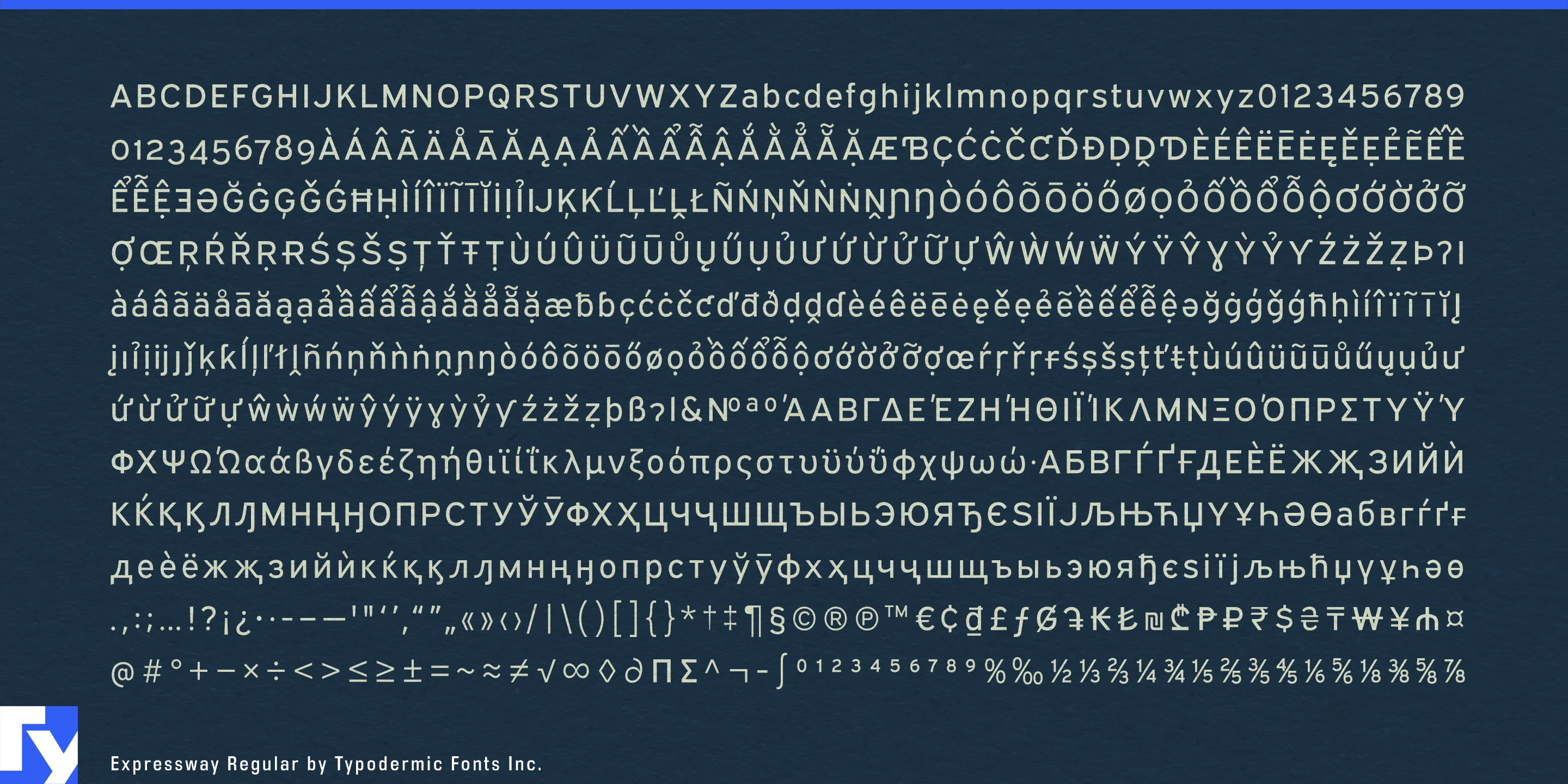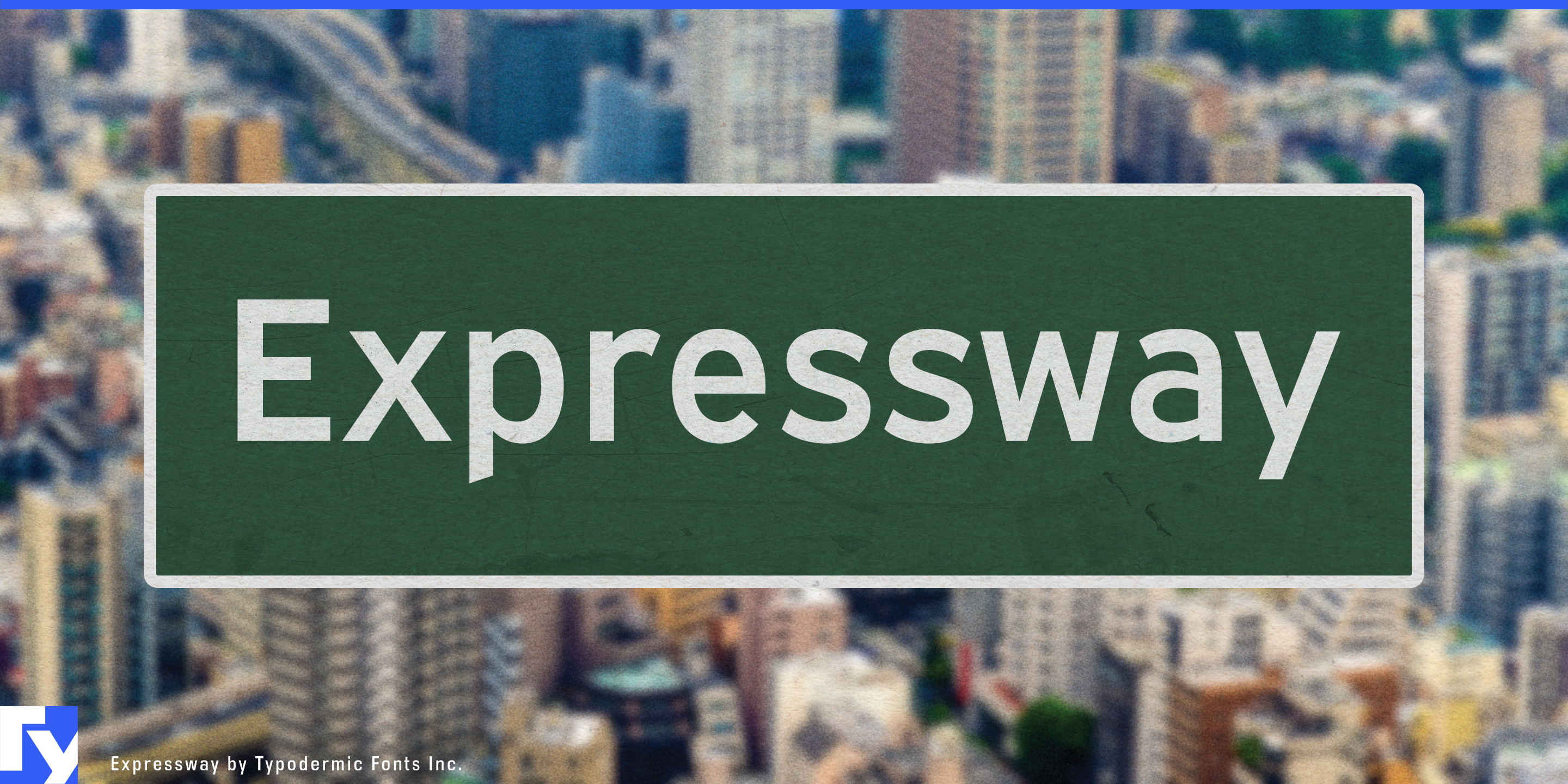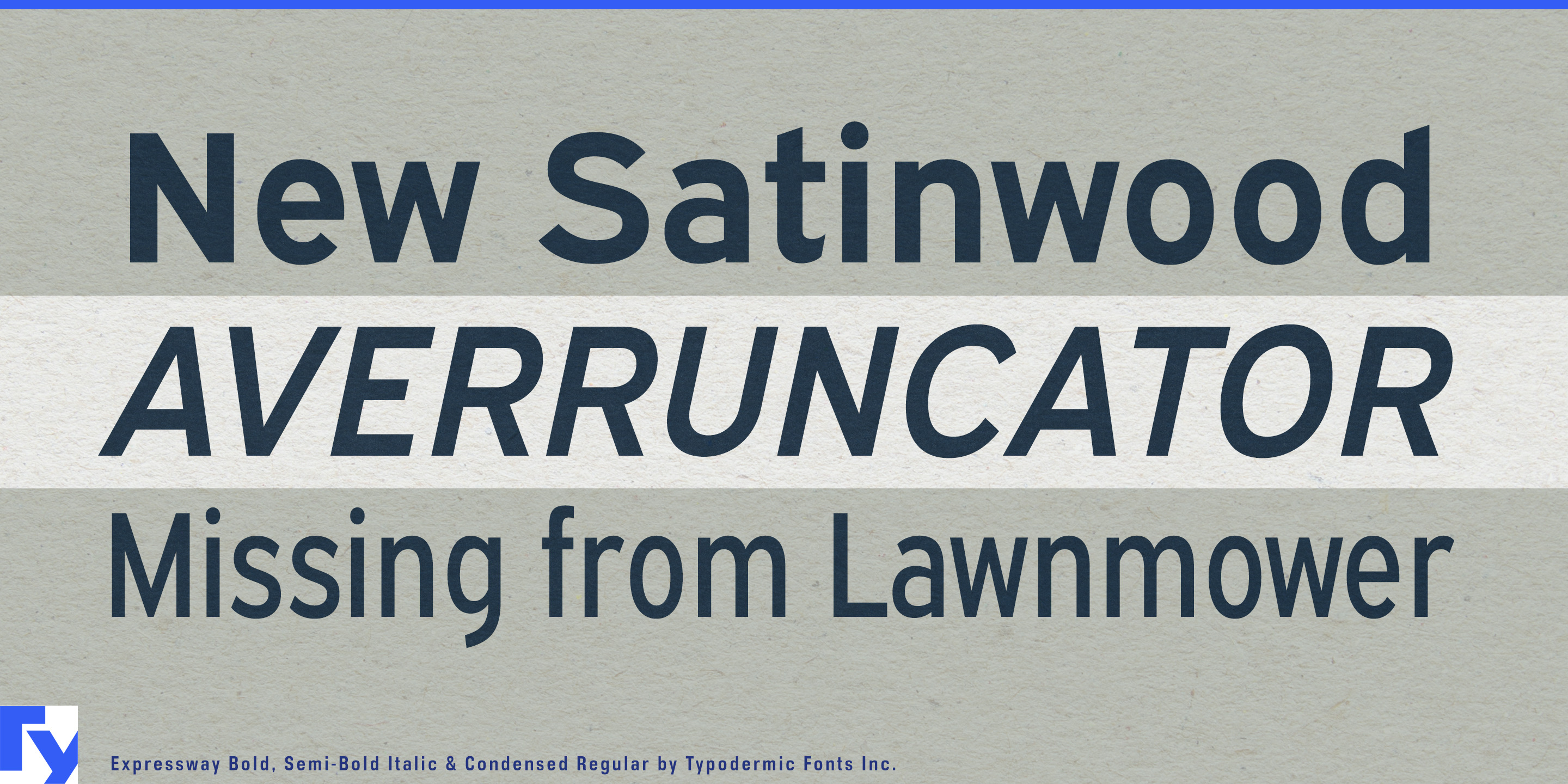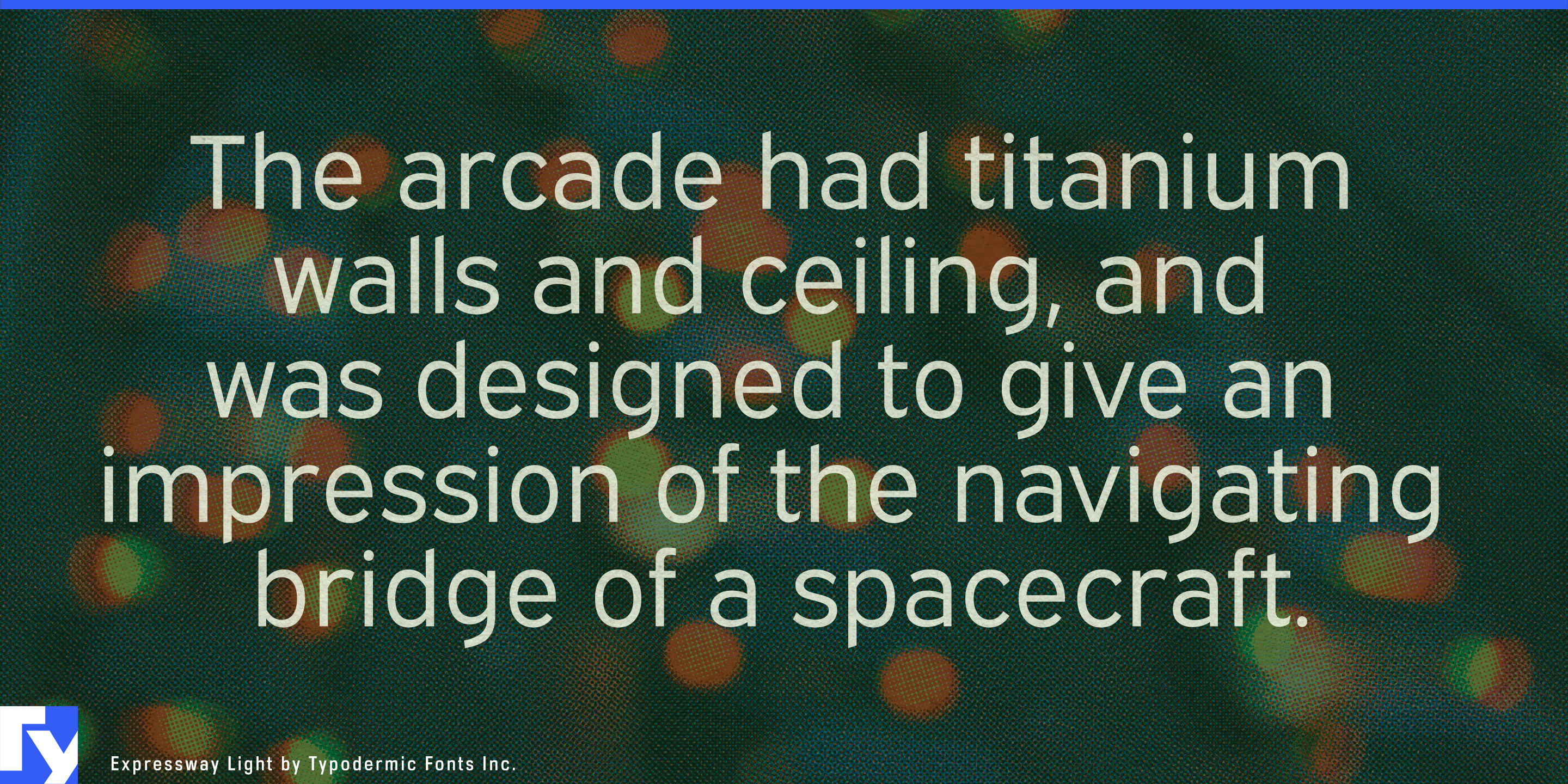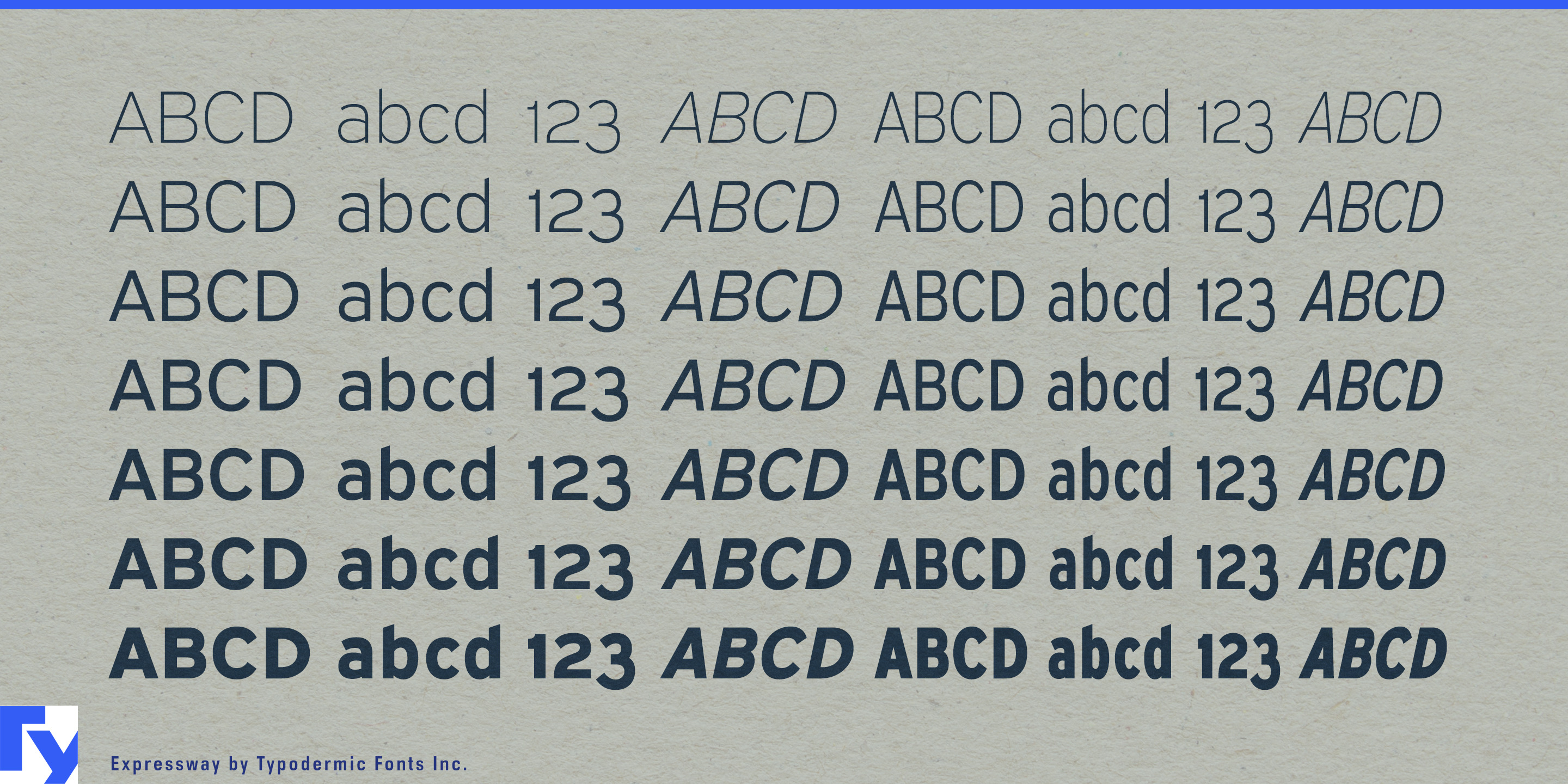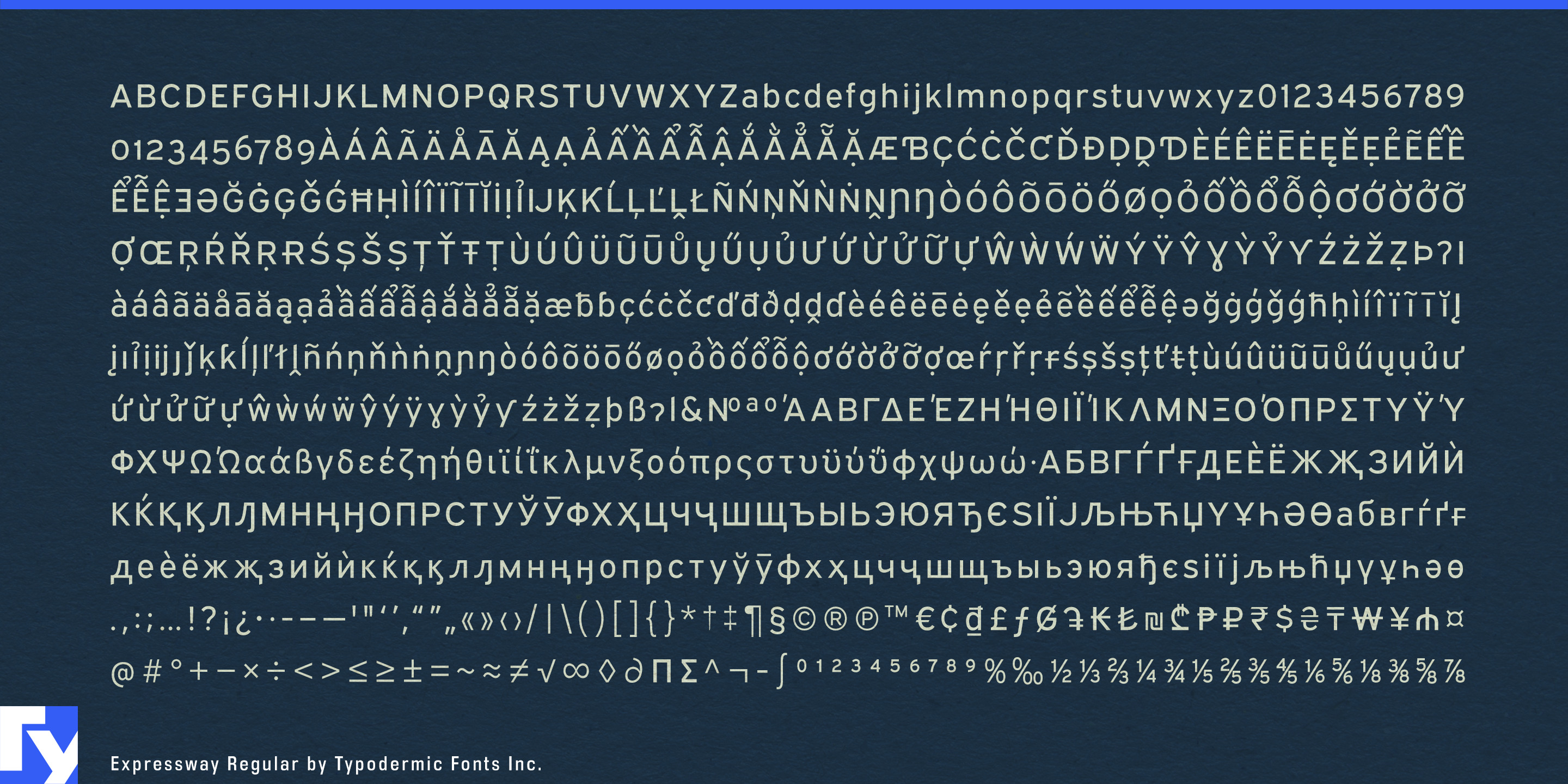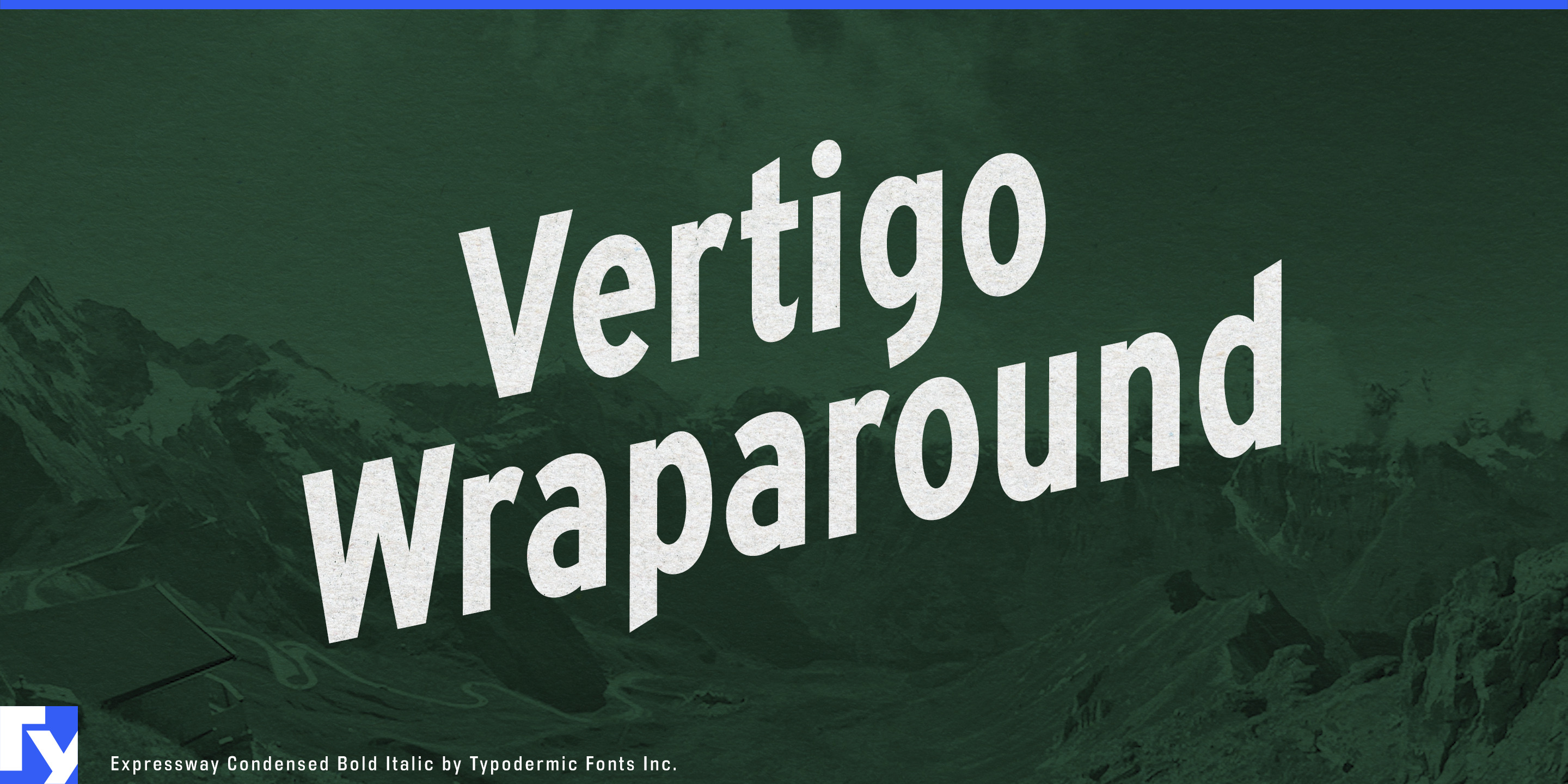
Expressway
Expressway takes the visual language of the FHWA Series of Standard Alphabets—the lettering familiar from interstate highway signs—and expands it into a family for contemporary transportation and information systems. The connection is recognizable, but Expressway is an interpretation rather than a reproduction: geometric, monoline, and regularized for uses that extend well beyond the roadside.
Modern mobility networks need more typography than destination signs. EV charging stations require bay numbers, rates, availability displays, instructions, and app interfaces. Smart parking systems combine zone identifiers with maps, prices, time limits, and live status information. Mobility hubs, tolling services, roadside assistance platforms, rental fleets, and autonomous shuttle systems all move between physical signs and screens. Expressway gives those pieces a common highway-derived vocabulary.
Seven weights in standard and condensed widths, each with a matching italic, make the family especially useful when information must fit predetermined spaces. Condensed styles can handle long destination names, multilingual labels, narrow control panels, departure displays, and dense maps; wider styles can take over for major destinations, station identities, route names, and large numerical information.
Airports, railway interchanges, coach terminals, ferry ports, parking structures, and large transport campuses have to coordinate gate numbers, platform labels, overhead signs, maps, ticketing screens, service notices, and short instructions. Expressway supports Latin-based European languages, Vietnamese, Greek, and Cyrillic, allowing the same visual system to continue across a broad range of destinations and regional deployments.
The same structure suits freight operators, delivery networks, warehouses, distribution centers, and fleet-management systems. Depot numbers, loading zones, vehicle identifiers, route groups, maintenance information, dispatch dashboards, and shipment-status displays all benefit from a family built around concise labels and repeated numerical information.
Expressway began with the typography of the highway, but its larger territory is the connected system surrounding the road: vehicles, stations, logistics, maps, screens, and the infrastructure that helps people and goods find their way.